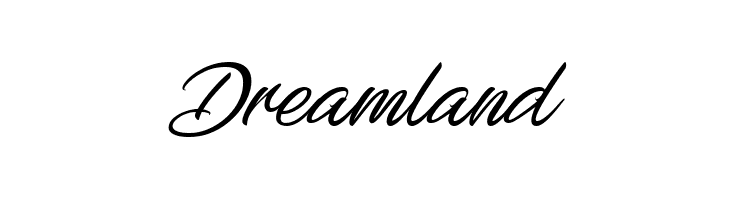
A modern, slanted font with high contrast and elegant style.
A graceful script font with fluid, cursive strokes and elegant character forms.
A dynamic and expressive handwritten font with fluid, flowing letterforms.
A bold, modern handwritten font with a playful and sophisticated style.
A modern, cursive font with elegant, flowing lines and a dynamic slant.
An elegant and flowing script font with a classic, sophisticated style.